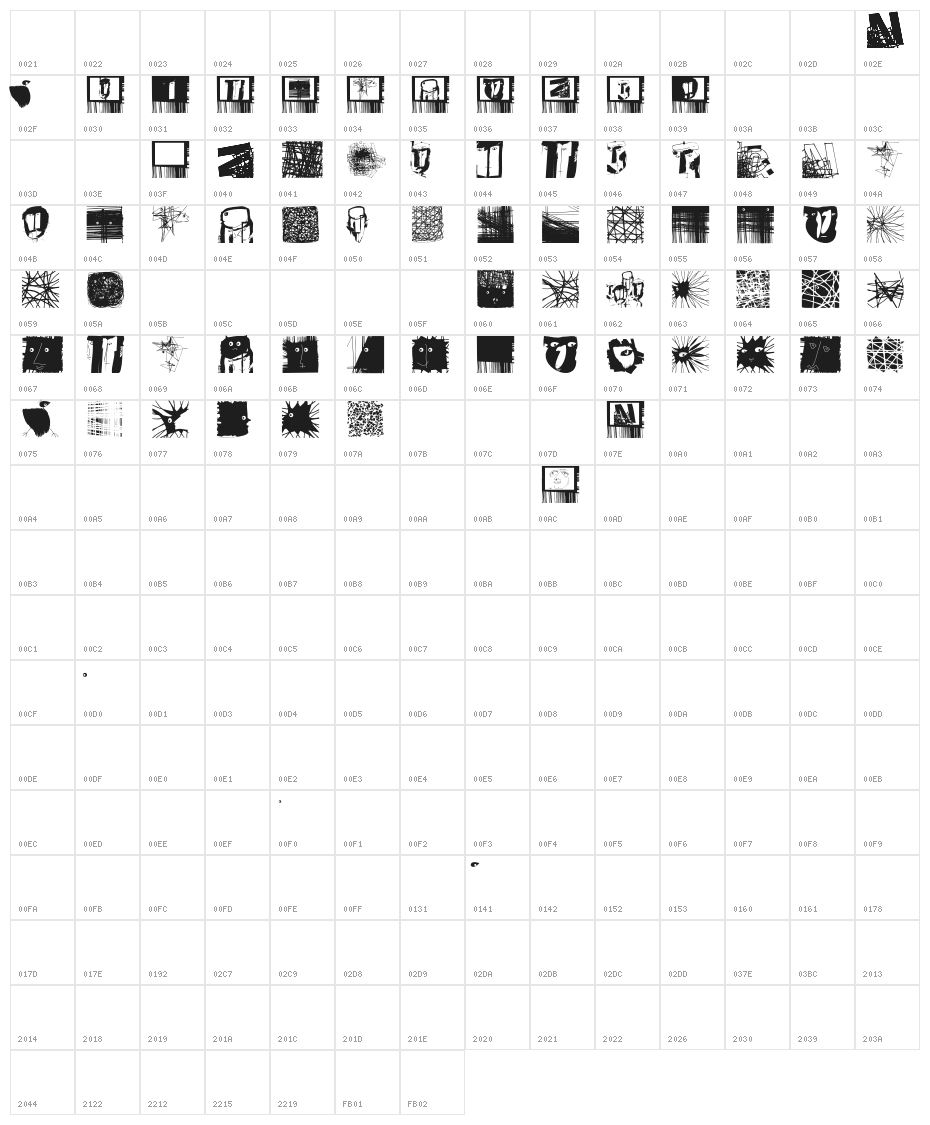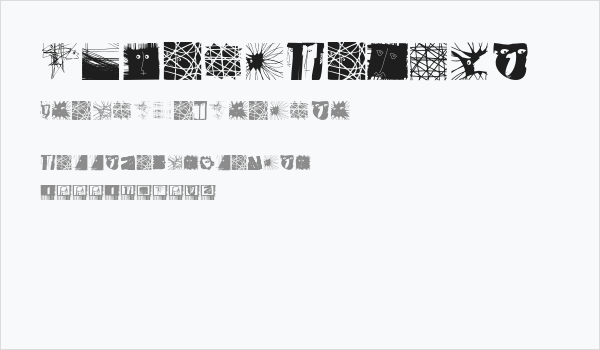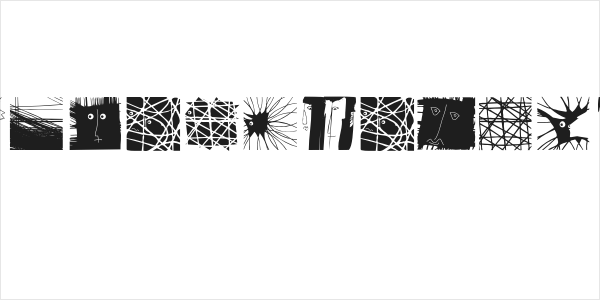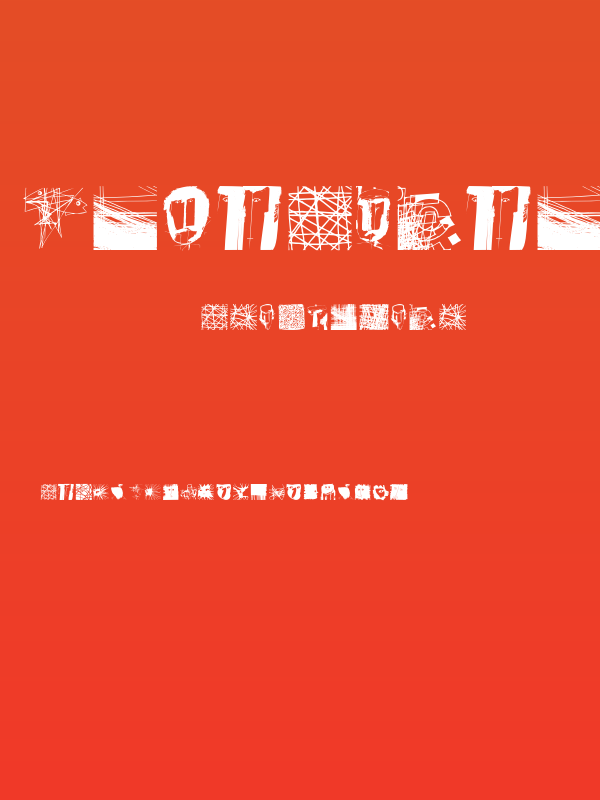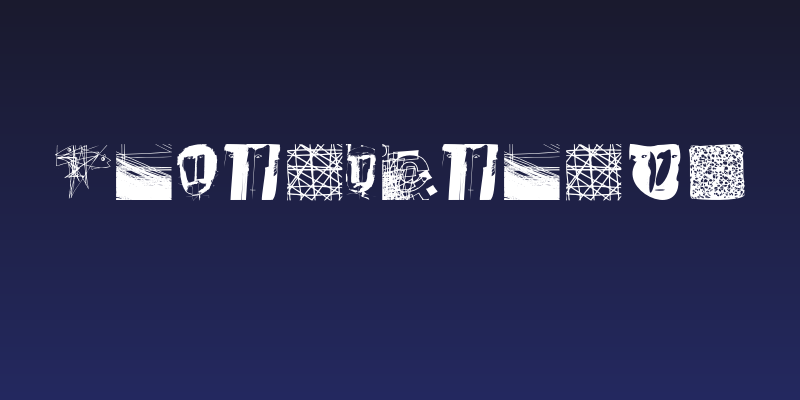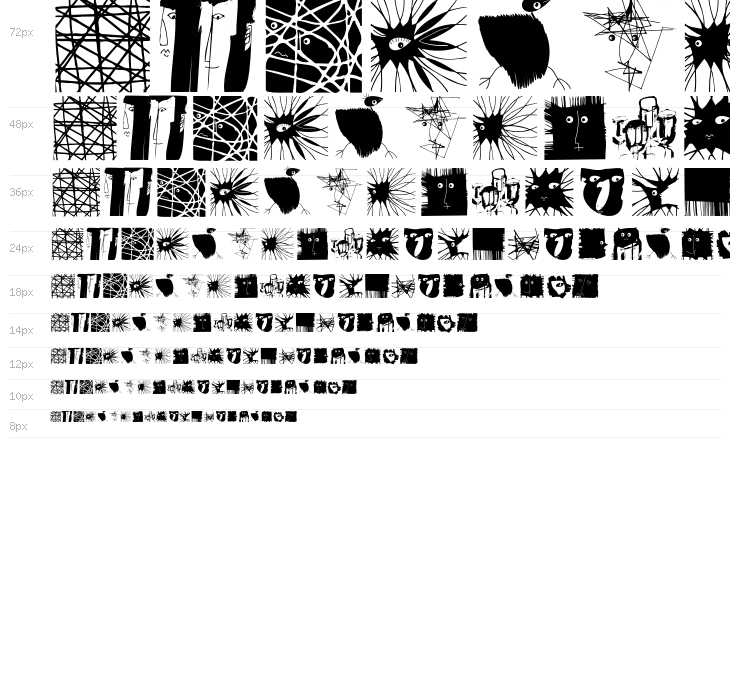
MSketchesTwo Font
MSketchesTwo Description
This font is a highly creative and abstract design, characterized by its chaotic and sketch-like appearance. Each character is uniquely crafted with a mix of jagged lines, splatters, and irregular shapes, giving it a hand-drawn, artistic feel. The letters are filled with intricate details and textures, making them appear as if they are part of a modern art piece. The font's unconventional style makes it stand out, with each character having its own distinct personality. The overall design is bold and expressive, perfect for projects that require a strong visual impact.
Overall StyleModern, Artistic
Use CaseLogos, Posters, Artistic Projects
Proposed ProjectsIdeal for art projects, album covers, posters, and creative branding that seeks a unique and bold statement.